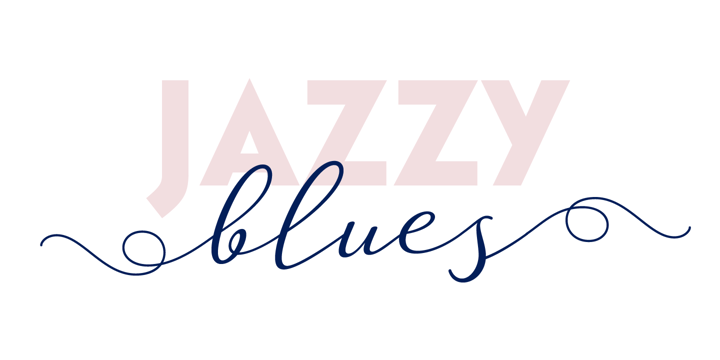
Guess
by DearType
The Guess Font Family was designed by Veneta Rangelova and published by DearType. Guess contains 16 styles and family package options.
Guess is a versatile, connecting script, designed to convey elegance and style. It is slender, feminine and friendly, let alone sexy. Guess will work perfectly for fashion, e-commerce brands, trend blogs, or any business that wants to appear classy and chic. The font is ideal for high-end logotypes and magazine headlines, but let’s not forget greeting cards, invitations, posters, ads and the various web usages. When it comes to the glyph set, well, Guess Pro has quite a lot of that (2500+ glyphs) - think multiple languages and tons of swashes and stylistic alternates to unleash your creativity. For all pragmatists out there, there is also a basic version of the font with an extended latin glyph set (no swashes, contextual alternates or stylistic sets). Last, but not least, Guess comes with a neat geometric sans in capital letters, which makes a great addition to the script, and a set of beautiful ornaments and borders that complete the whole look with a bang.